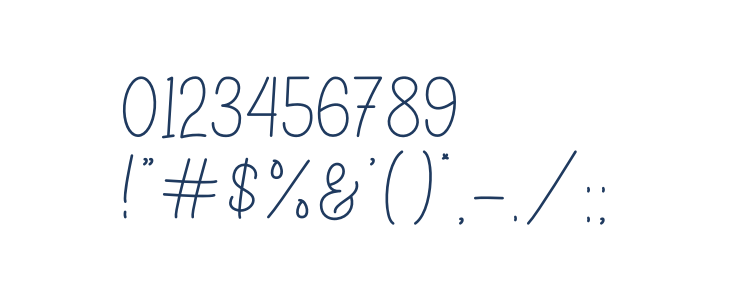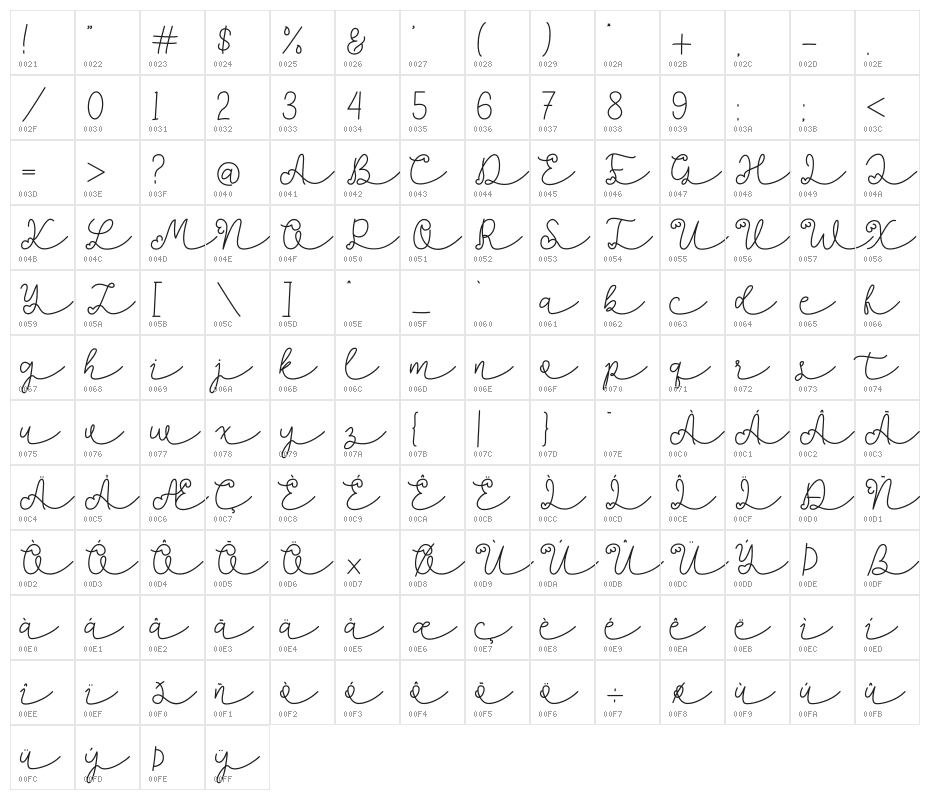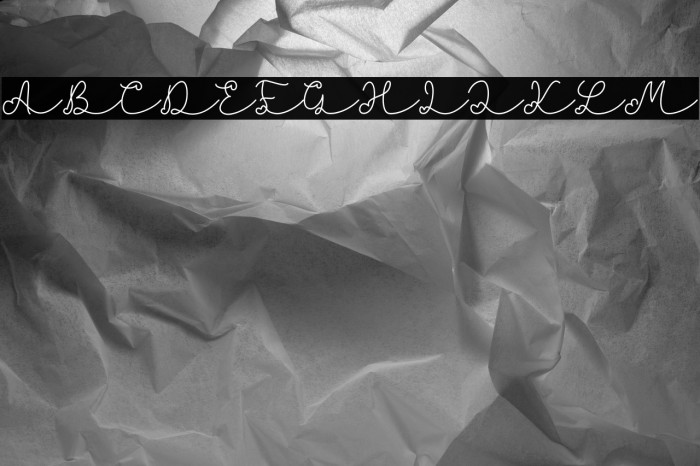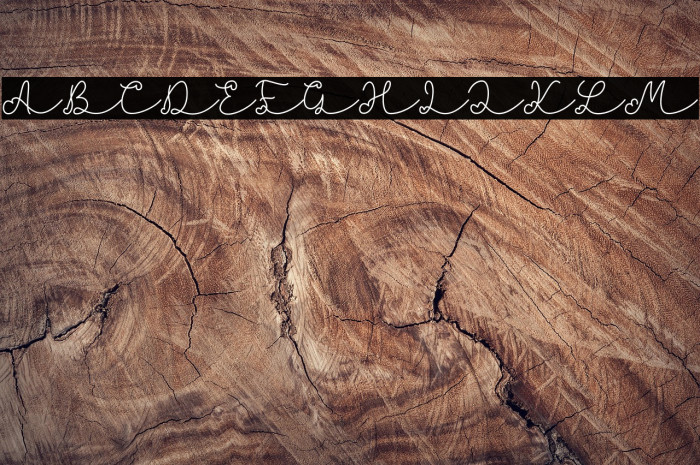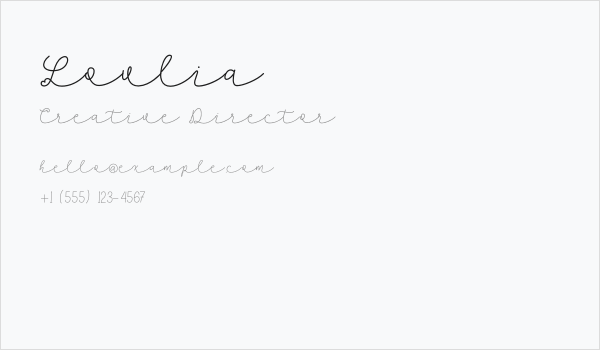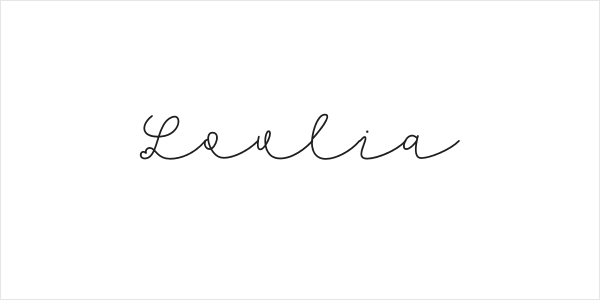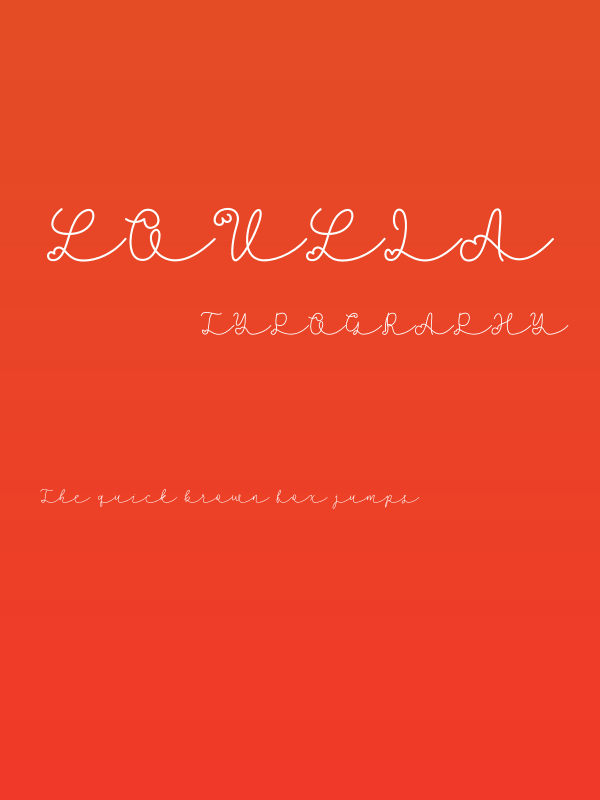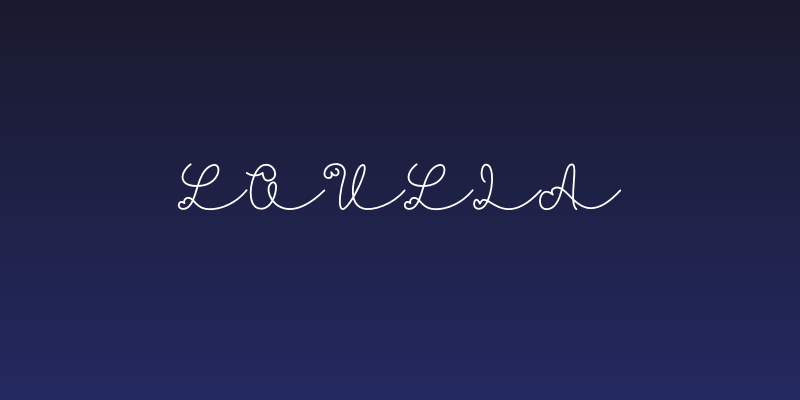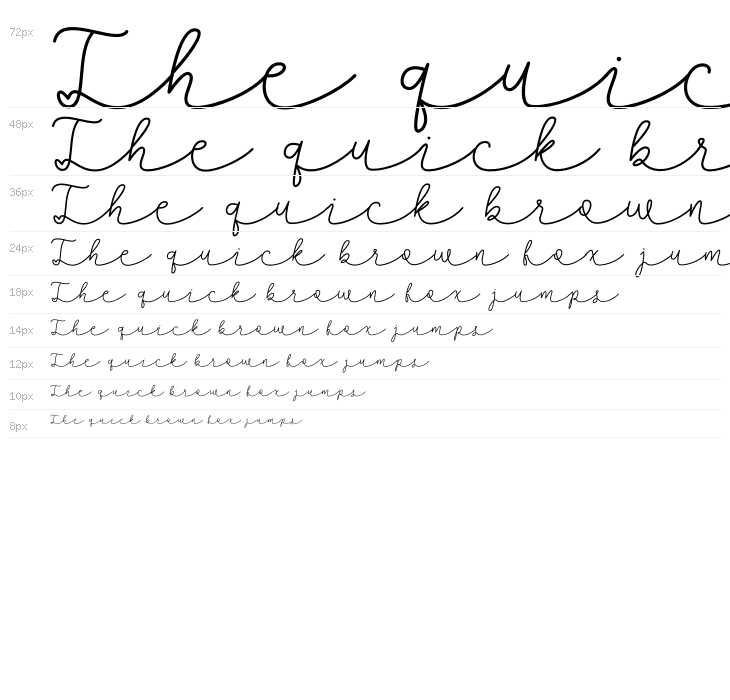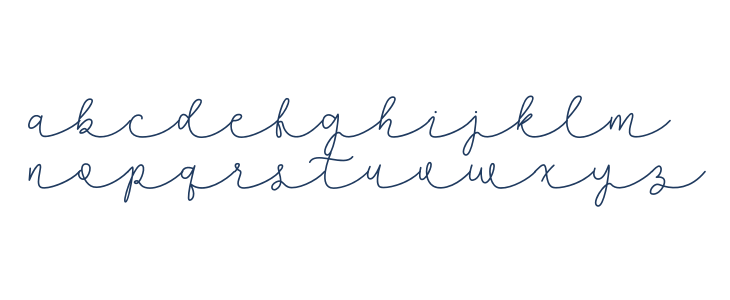
Lovlia Font
Lovlia Description
This font features a delicate, flowing script style that exudes elegance and charm. The uppercase letters are characterized by their looping, cursive forms, while the lowercase letters maintain a consistent, fluid motion, enhancing readability. The numerals are more straightforward, with a slight slant that complements the overall script aesthetic. Special characters are thoughtfully designed to match the whimsical nature of the alphabet, making this font versatile for various creative applications. Its thin strokes and smooth curves give it a light, airy feel, perfect for adding a touch of sophistication to any project.
| Overall Style | Elegant, Whimsical |
| Use Case | Invitations, Branding, Decorative text |
| Proposed Projects | Ideal for wedding invitations, greeting cards, branding, and elegant packaging designs. |